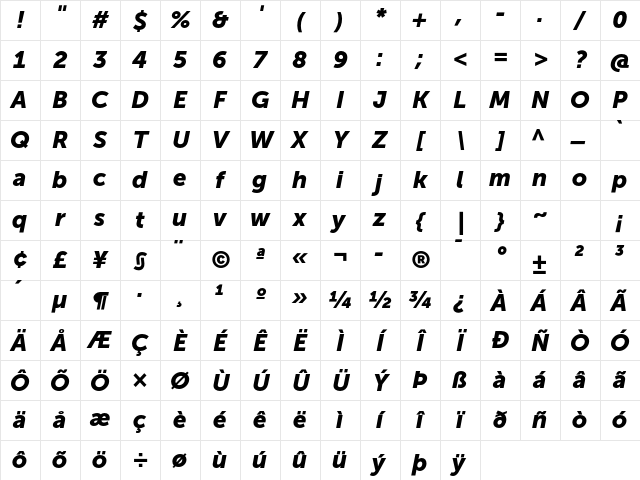
Museo Sans 900 Italic Free Font
Museo Sans 900 Italic
Style: 900 Italic
Foundry: Jos Buivenga
Designer: Jos Buivenga
Design Context for Museo Sans
Museo Sans is a composed and adaptable typeface that performs quietly and consistently across a wide range of design contexts. The slanted form adds forward momentum and visual energy.
Pro Tip: Use Museo Sans for emphasis, pull quotes, and subheadings where its slanted energy can add rhythm to the layout.
Who designed the Museo Sans 900 Italic font?